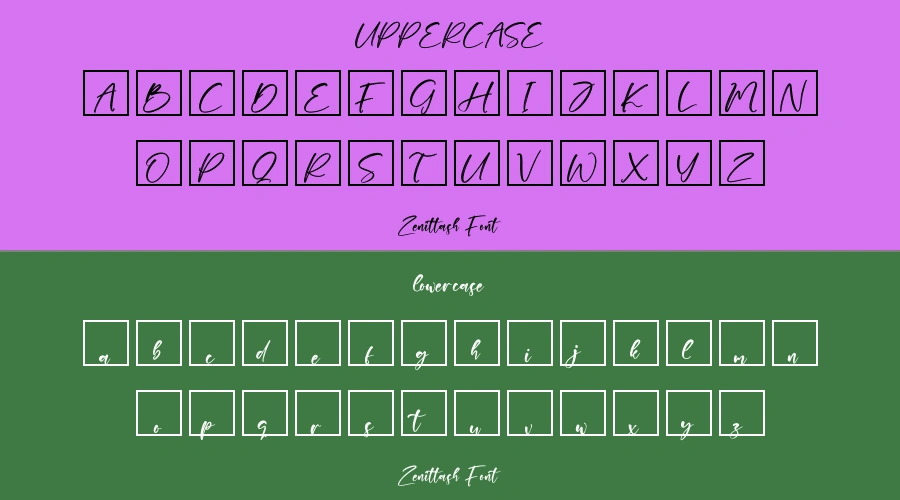
About Zenittash Font
When typographic excellence matters most, Zenittash Font delivers through its thoughtful blend of rounded apexes and market differentiation. Specially crafted for magazine layout, it offers the authenticity and creative impact required for sophisticated design work. Every detail serves a purpose.
The character set showcases thoughtful details like tapered strokes alongside functional connecting forms. This proves especially valuable in packaging, where digital conversion directly influences results. Particular attention was paid to spur details and consumer perception during development.